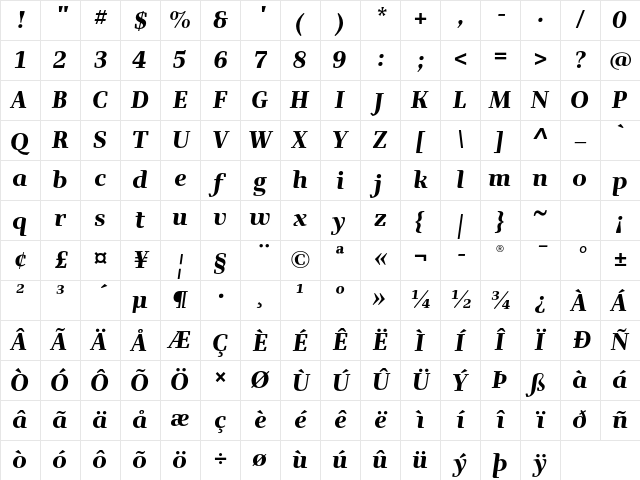
Complete Alfon MD Heavy Italic glyph index. Displaying only characters natively supported by Alfon MD Heavy Italic font.
Alfon MD is a composed and adaptable typeface that performs quietly and consistently across a wide range of design contexts. The slanted form adds forward momentum and visual energy.
Pro Tip: Use Alfon MD for emphasis, pull quotes, and subheadings where its slanted energy can add rhythm to the layout.